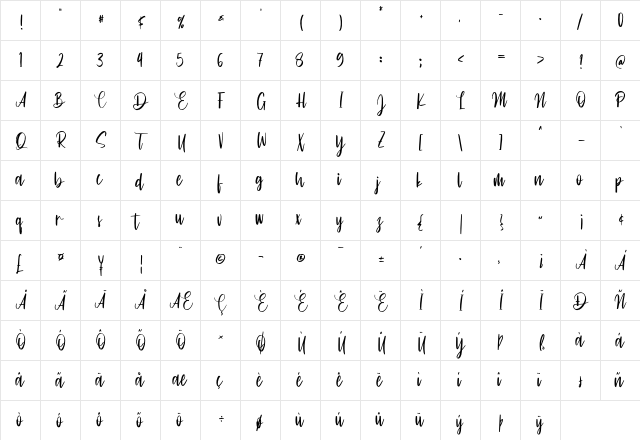
Cinthya Einzberg Regular
| Foundry | StringLabs |
| Designer | StringLabs |
Design Context for Cinthya Einzberg Typeface
Cinthya Einzberg is a composed and adaptable typeface that performs quietly and consistently across a wide range of design contexts.